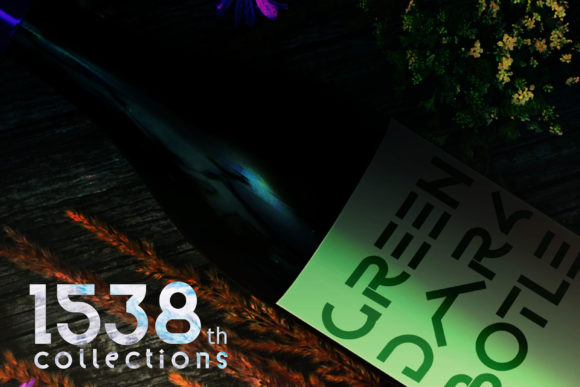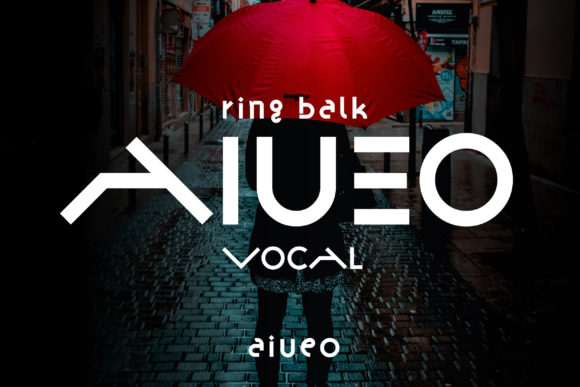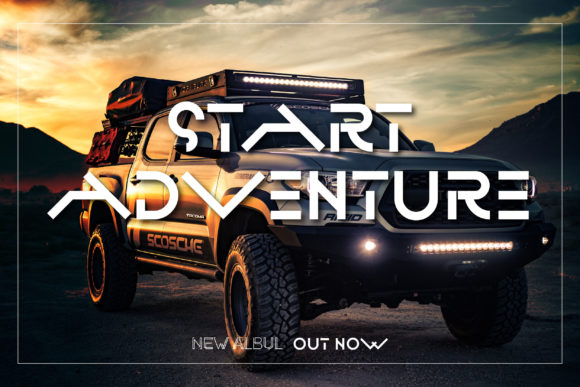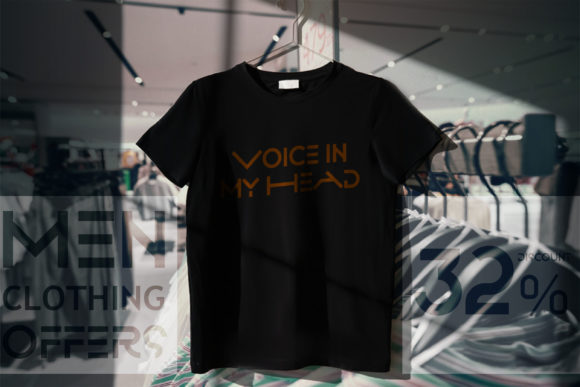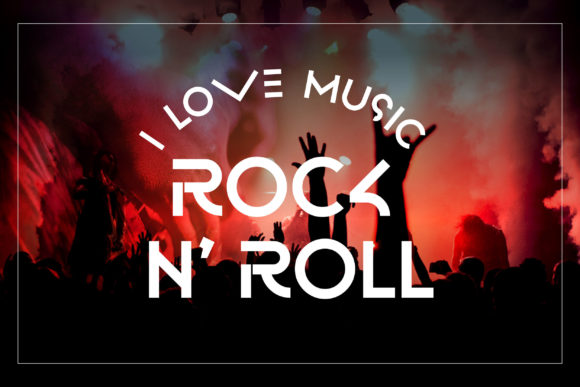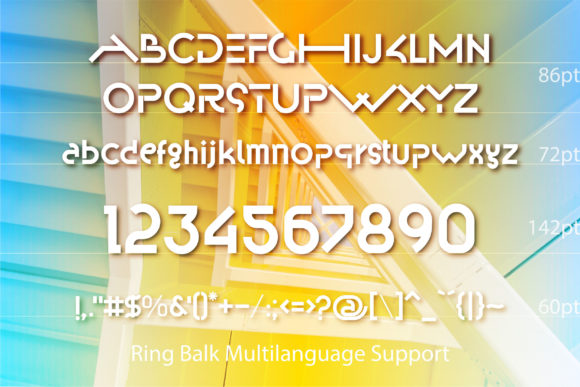
Introduction to Ring Balk Font
Have you ever stumbled upon a font that just speaks to you, like a design whisper in your ear? For designers, this moment is pure magic – a spark that ignites a creative project and sets the imagination ablaze. For me, that moment came when I discovered the bold and authentic display font, Ring Balk Font.
What makes Ring Balk Font truly special is its versatility. From billboards to magazines, posters to t-shirts, and even industrial routers, this high-quality design resource can elevate any visual project. Whether you’re looking for a statement piece or a subtle touch, Ring Balk Font is the perfect addition to your design toolkit. With its transparent background and sleek design, it’s a free download waiting to be unleashed on your next creative endeavor.
As a valuable resource for designers, Ring Balk Font offers endless possibilities for self-expression and creativity. Its bold and authentic display makes it a standout choice for any project, whether you’re working on a small media piece or something larger in scope.
Key Features of Ring Balk Font
- High-quality design resource ideal for creative projects, with a transparent background for seamless integration.
- Ring Balk Font is available in a single weight, making it suitable for a variety of design applications, from logos to typography.
- Designed with a clean and modern aesthetic, this font is perfect for creating visually appealing designs and graphics.
- Each character is carefully crafted to ensure high-resolution quality, making it ideal for use in high-quality print and digital projects.
- Includes a comprehensive character set, covering a wide range of languages and characters, making it a versatile design resource.
Honest Review: Ring Balk Font
I recently stumbled upon the Ring Balk Font while searching for a unique design resource for a creative project. The font offers a high-quality, vintage aesthetic that caught my attention.
Here are some aspects that work well for the Ring Balk Font✨:
- Unique and quirky design that can add character to any creative project
- Transparent background, making it easy to use with various design elements
- Works well for headings, titles, and short phrases
However, I did encounter some limitations with the Ring Balk Font⚠️:
- May not be suitable for long blocks of text due to its unconventional design
- Limited language support, which may be a concern for designers working on international projects
Overall, I’m impressed with the Ring Balk Font and its potential to elevate creative projects. While it may have some limitations, its unique design and free availability make it a valuable addition to any designer’s toolkit.
The Ring Balk Font is commonly used in creative projects, such as logos, brochures, and business cards. It is also used in digital design, such as website headers and social media graphics, to add a touch of elegance and sophistication.